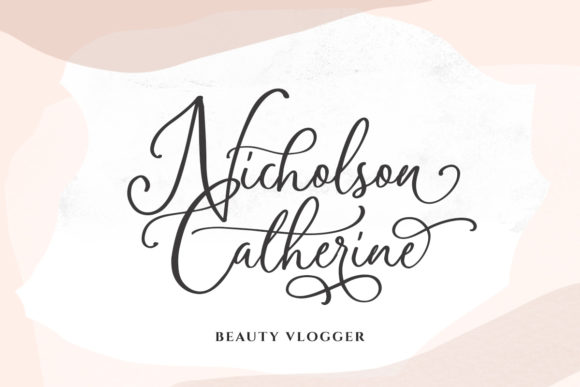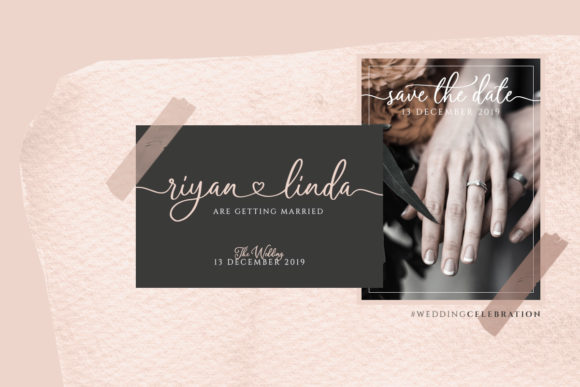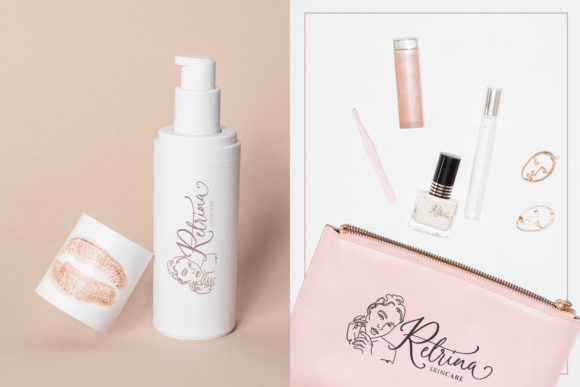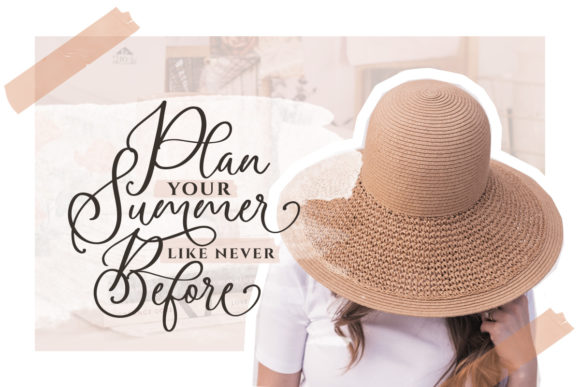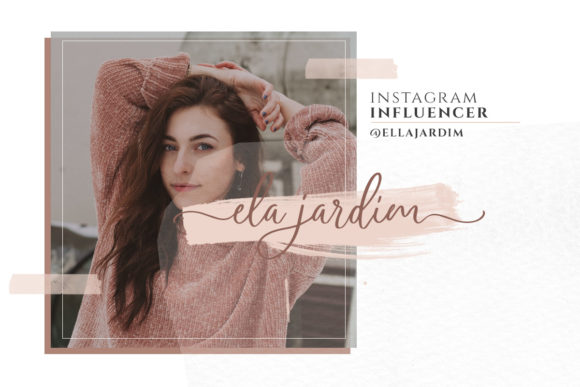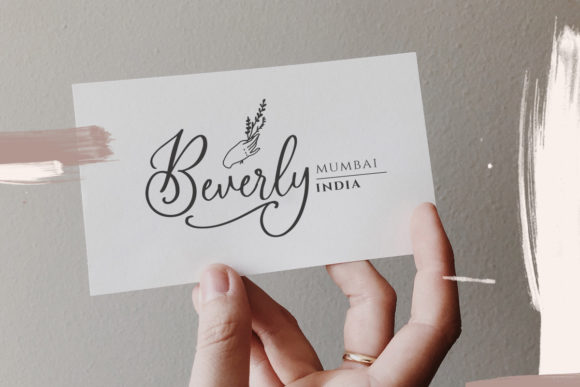
The Sweet Charm of Amerta Misty Script Font
I’ll never forget the time I was working on a wedding invitation design project, and my client asked for a font that would add a touch of romance and whimsy to the overall aesthetic. I scoured the internet, tried out countless fonts, but nothing seemed quite right. That was until I stumbled upon Amerta Misty Script Font. ✨ It was love at first sight! The sweet, flowing curves and simple charm of this font won my heart, and my client’s too.
- ✨ The elegant, cursive script style that’s perfect for adding a touch of romance to any design
- ✅ The font’s simplicity makes it highly versatile and easy to pair with other fonts
- 💕 The whimsical feel that’s perfect for crafting, DIY projects, and wedding designs
- 📚 The font comes with a range of OpenType features, glyphs, and stylistic alternates to add more creativity to your designs
While Amerta Misty Script Font is a beautiful font, there are a few things to keep in mind 🤔:
- ⚠️ The font may not be the best choice for body text or long paragraphs, as it’s designed primarily for display purposes
- ⚠️ Some of the more intricate swashes and flourishes may not display properly in all software or platforms
A Practical Guide to Using Amerta Misty Script Font
- Experiment with the font’s OpenType features, such as swashes and ligatures, to add more flair to your design
- Experiment with the font’s glyphs, swashes, and stylistic alternates to add more creativity to your design
Amerta Misty Script Font was designed with the intention of capturing the essence of a romantic, whimsical feel. The font’s creator drew inspiration from classic script fonts, with a modern twist. The result is a font that’s both elegant and playful, perfect for adding a touch of charm to any design.
| What is Amerta Misty Script Font best used for? | Amerta Misty Script Font is best used for display purposes, such as titles, headings, and short paragraphs. It’s perfect for wedding designs, crafting, DIY projects, and other creative endeavors. |